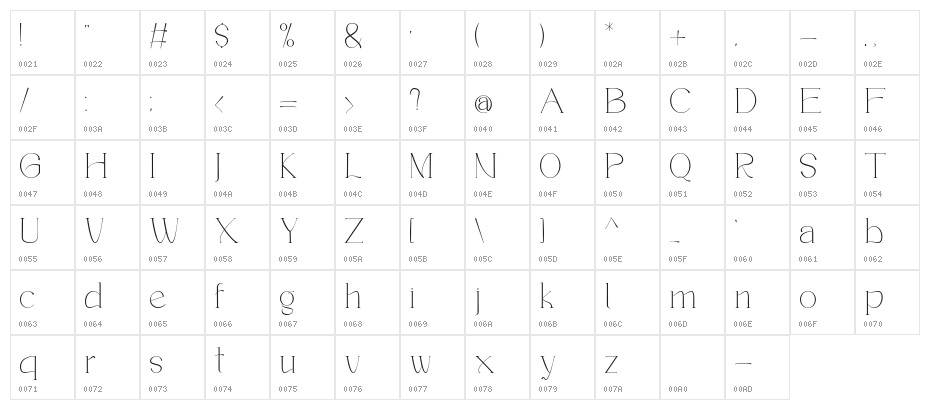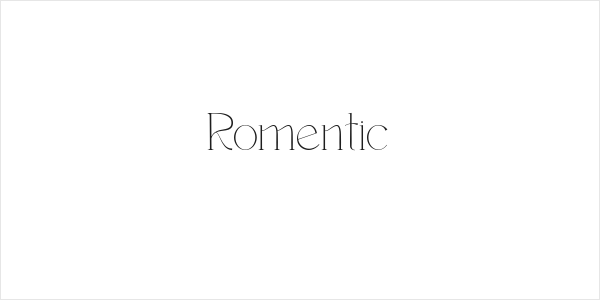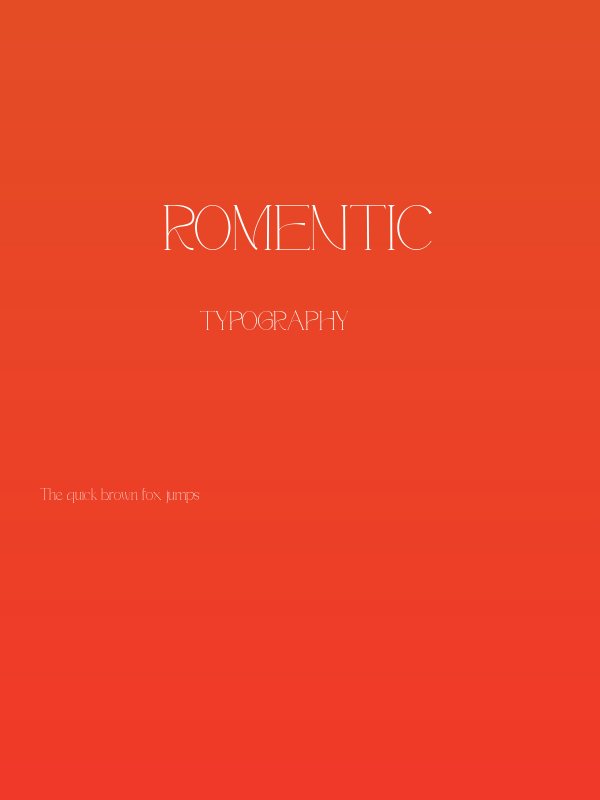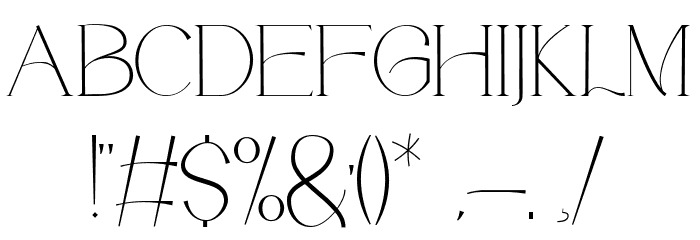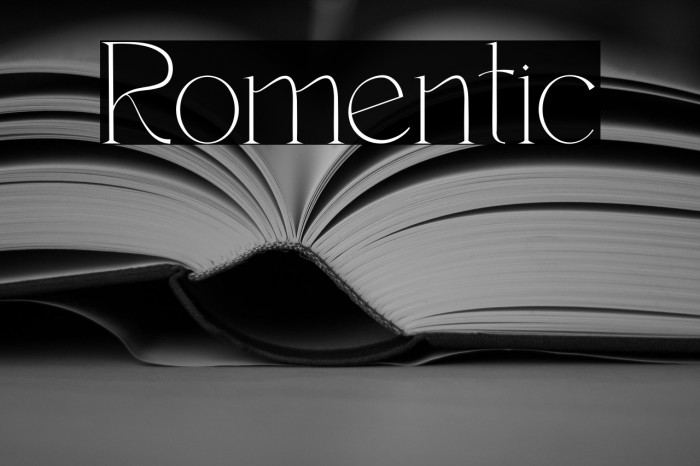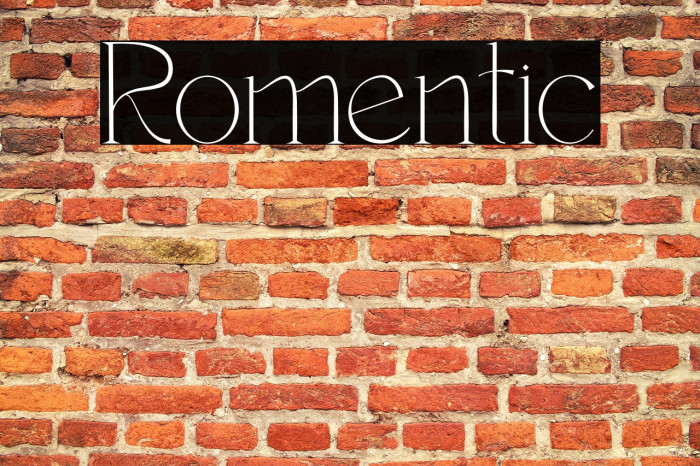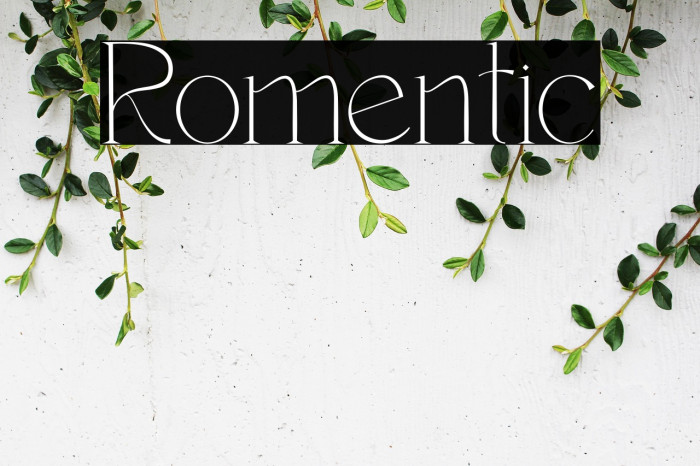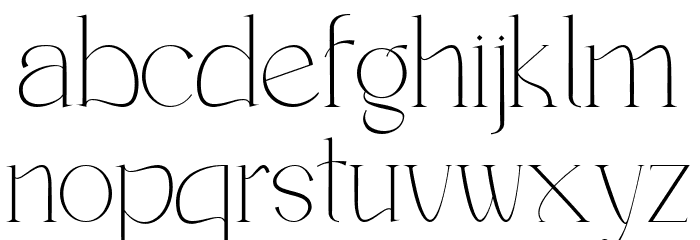
Romentic Font
Romentic Description
This font features a delicate and elegant design with thin, elongated strokes that give it a sophisticated and refined appearance. The characters exhibit a high contrast between thick and thin lines, adding to its graceful aesthetic. The uppercase letters are tall and slender, while the lowercase letters maintain a consistent style with slightly more curvature. The special characters and numerals are crafted with the same attention to detail, ensuring a cohesive look across all elements. This font's unique style makes it suitable for projects that require a touch of elegance and class.
| Proposed Projects | Ideal for wedding invitations, luxury branding, high-end product packaging, and editorial design. |